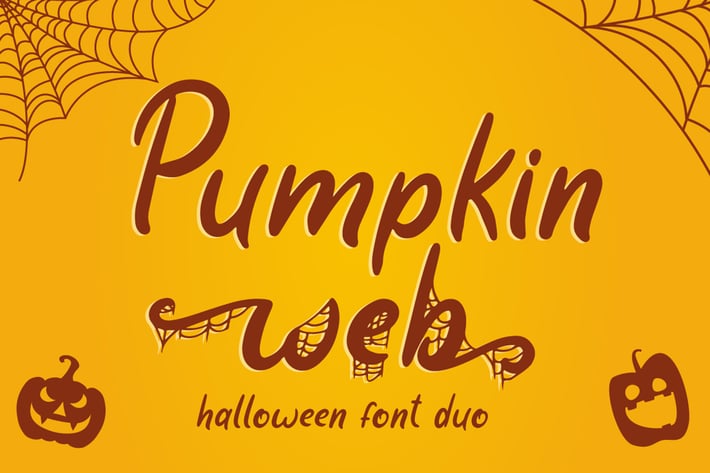
Pumpkin Web - Halloween Font
Pumpkin Web is an exquisite handwritten font, masterfully designed to become a true favorite. It maintains its classy calligraphic influences while feeling contemporary and fresh. Fall in love with it and bring your projects to the highest levels!
Beginning & Ending Swash